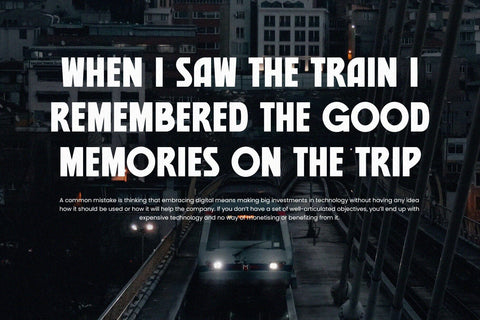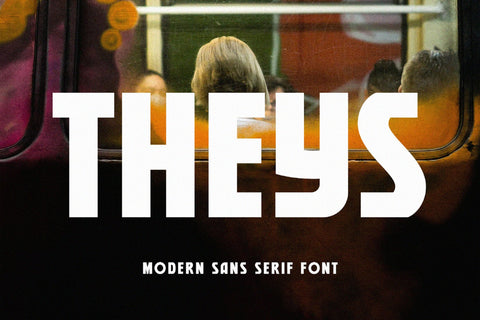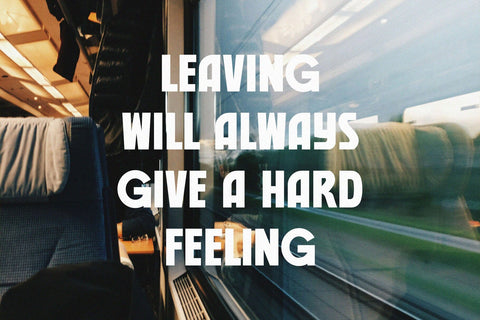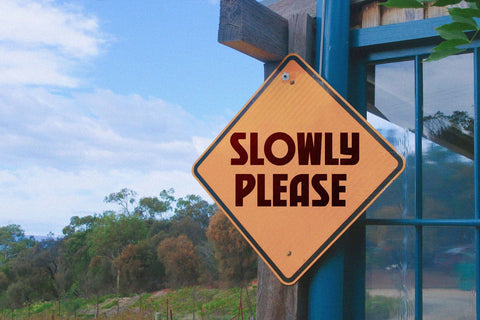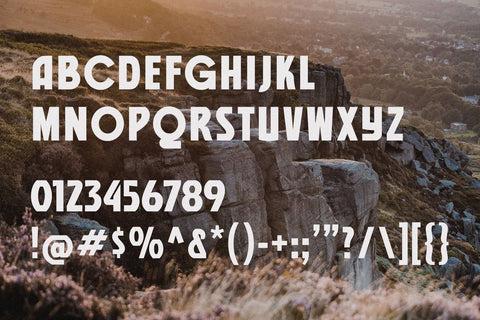
Theys - Modern Sans Serif Font
Introducing our new Theys, modern sans serif font with elegant style this is perfect for branding, logos, invitation, magazines, product packaging and more.